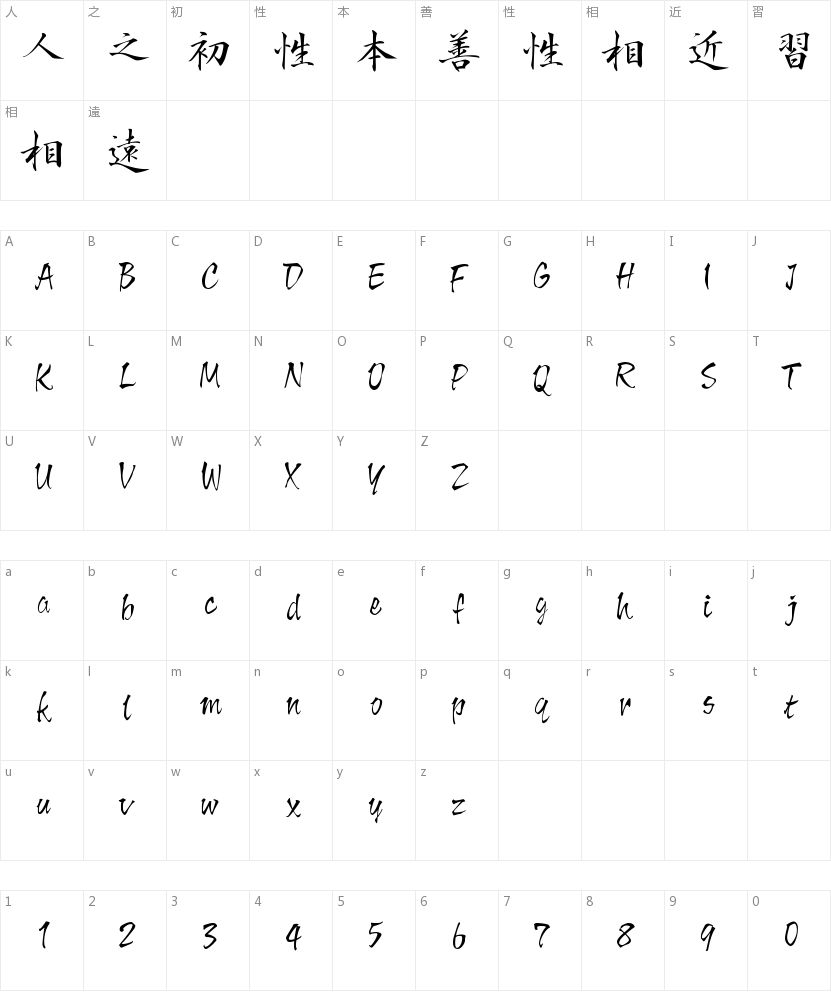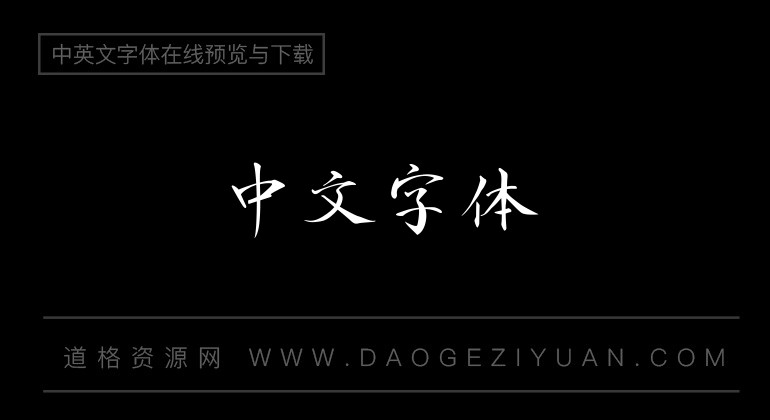
Fangyuan Liuli Xingshu is a very classical running script font. It provides infinite inspiration for your text and makes your work more elegant with square and round crystal brushstrokes, graceful lines, fresh structure and exquisite details. Its characteristic is that each character has a unique shape, which makes your text more delicate, and the lines of the font are delicate, which makes your text brighter and can make your text more textured.Content introduction
is a very good handwriting art font, with a good visual sense, suitable for cultural propaganda design, commercial brand advertising and product packaging design and personalized text typesetting and other more scenes.